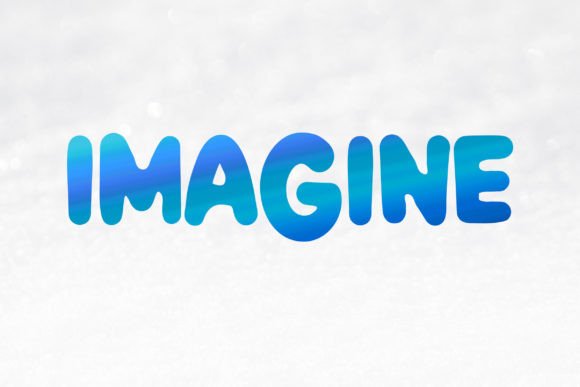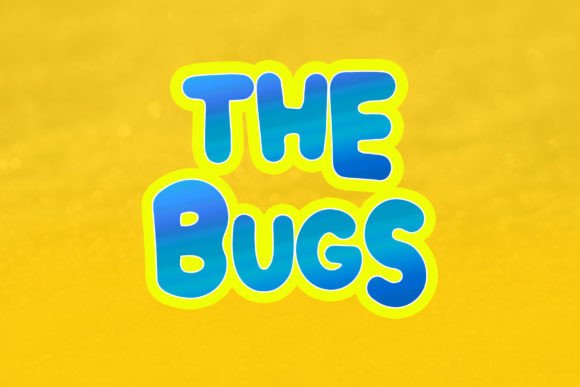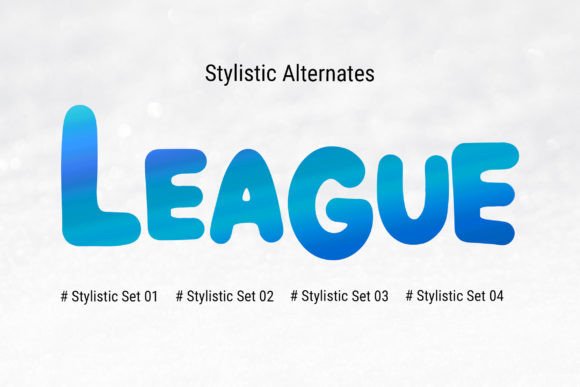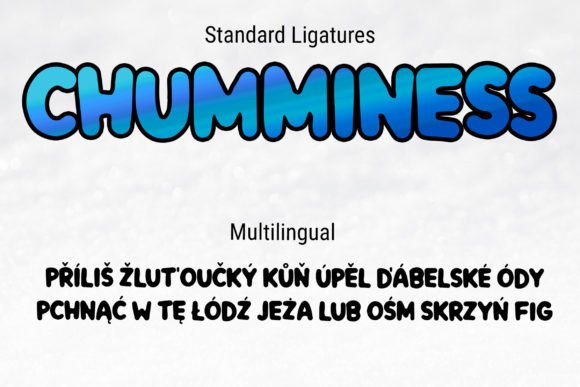
The Playful Charm of Boxing Font: A Designer’s Delight
I’ll never forget the time I was working on a project for a kids’ activity book. I had all the illustrations and content ready, but I was stuck on finding the perfect font. I wanted something that would appeal to kids and embody the playfulness of the book. That’s when I stumbled upon Boxing Font, and it was love at first sight! 💕
Boxing Font is a fun and charming display font that embodies playfulness and originality. It’s the perfect choice for kids’ activities or school projects, clothing, food posters, and birthday cards. In this article, I’ll share my honest review of Boxing Font, provide a practical guide on how to use it, and explore similar fonts and alternatives.
• ✅ Unique and playful design that grabs attention
• ✅ Highly legible, even at smaller sizes
• ✅ Versatile and can be used for various design projects
• ✅ Easy to pair with other fonts for a cohesive look
• ⚠️ Limited use for body text due to its display font nature
• ⚠️ May not work well for formal or professional designs
The Designer Inspiration Behind Boxing Font
Boxing Font was designed with the intention of creating a playful and charming display font. The designer wanted to create a font that would evoke a sense of fun and creativity, perfect for kids’ activities and school projects. The font’s unique design and quirky personality make it a standout in the world of typography.
Q: What is Boxing Font best used for?
A: Boxing Font is best used for kids’ activities or school projects, clothing, food posters, and birthday cards.
Q: Is Boxing Font suitable for body text?
A: No, Boxing Font is a display font and is not suitable for body text due to its size and legibility.